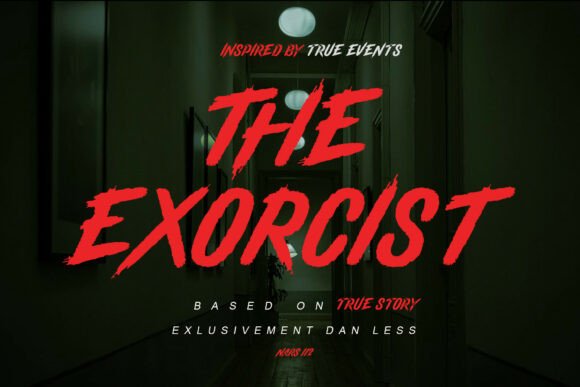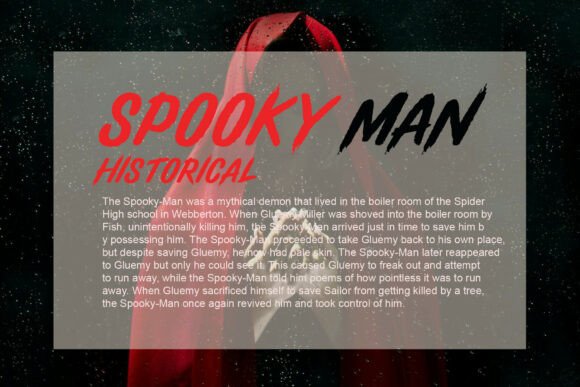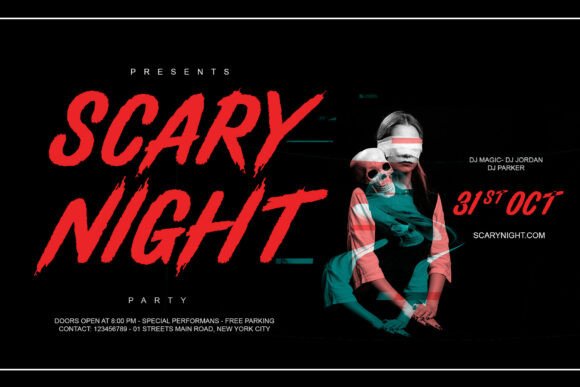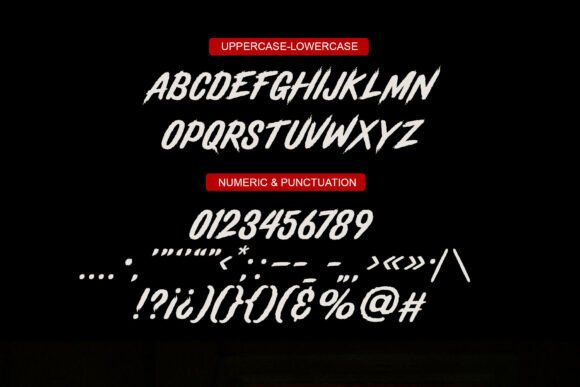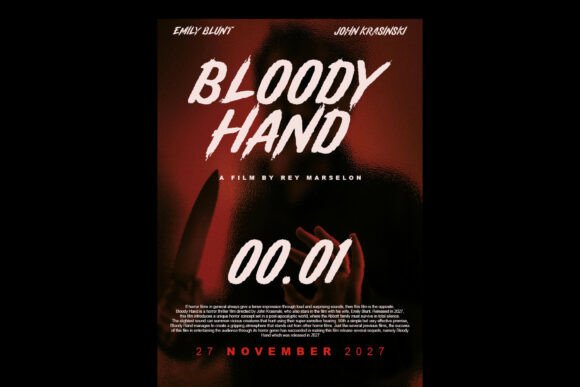
Unleash the Chills with Another Halloween: The Ultimate Decorative Font for Horror and Suspense
As the spookiest time of the year approaches, designers and crafters are on the lookout for the perfect font to capture the essence of Halloween. Look no further than Another Halloween, a raw and aggressive decorative font that’s sure to send chills down your audience’s spine. Designed to embody the high-energy spirit of horror and suspense, this font is the ideal choice for creating eye-catching and terrifying visuals.
The Raw, Aggressive Look of Another Halloween
Another Halloween boasts a unique, hand-painted aesthetic that’s reminiscent of a horror movie title screen. The jagged, distressed edges and heavy, italicized stance give this font an unmistakable sense of urgency and dread. The rough texture and irregular shapes evoke a sense of rawness and edginess, making it perfect for designers who want to create a bold and unsettling visual impact.
Perfect for Horror and Suspense Designs
Whether you’re designing for a spooky event, a horror movie, or a metal-inspired brand, Another Halloween is the perfect choice. This font screams with energy and intensity, making it ideal for creating attention-grabbing titles, posters, and graphics. The distressed texture and jagged edges add a layer of grittiness and realism, drawing your audience into the world of horror and suspense.
Use Cases for Another Halloween
- Horror Movie Titles: Create eye-catching title screens for your horror movie or short film with Another Halloween.
- Haunted House Posters: Design terrifying posters for haunted houses, hayrides, or other spooky events.
- Edgy Streetwear: Add a touch of horror to your streetwear designs with Another Halloween.
- Social Media Graphics: Create high-impact social media graphics that will leave your audience shivering in fear.
Why Choose Another Halloween?
So why choose Another Halloween over other decorative fonts? Here are just a few reasons:
- Unique Aesthetic: Another Halloween boasts a one-of-a-kind, hand-painted aesthetic that’s sure to stand out from the crowd.
- High-Energy Spirit: This font captures the high-energy spirit of horror and suspense, making it perfect for creating attention-grabbing designs.
- Versatility: Another Halloween can be used for a wide range of design projects, from horror movies to edgy streetwear.
Tips for Using Another Halloween
To get the most out of Another Halloween, here are a few tips:
- Experiment with Colors: Try pairing Another Halloween with bold, bright colors to create a striking visual contrast.
- Play with Texture: Experiment with different textures and overlays to add depth and interest to your design.
- Keep it Simple: Don’t be afraid to keep your design simple and bold – Another Halloween packs a punch on its own.
If you’re looking for a font that will unleash the chills and capture the high-energy spirit of horror and suspense, look no further than Another Halloween. With its raw, aggressive aesthetic and versatile design, this font is perfect for designers and crafters who want to create eye-catching and terrifying visuals. So why wait? Download Another Halloween today and start creating your own horror-inspired masterpieces!